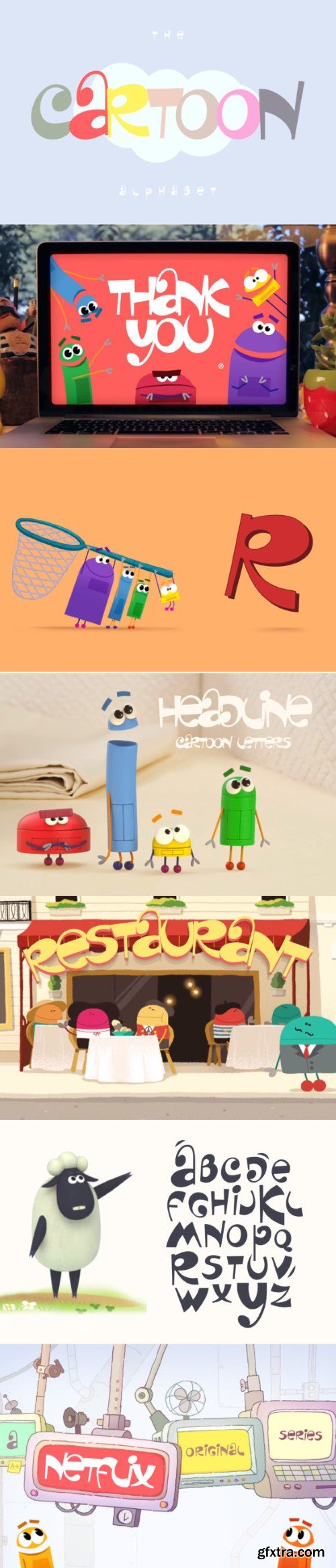
卡通字体
Cartoon is a fun, quirky and friendly display font. It is suitable for logotype, headline font, in corporate identity, brand identity, apparel industry, poster, music, movie, game, magazine, book, comic, cartoon, YouTube, Instagram, website, or any of your creative design projects.